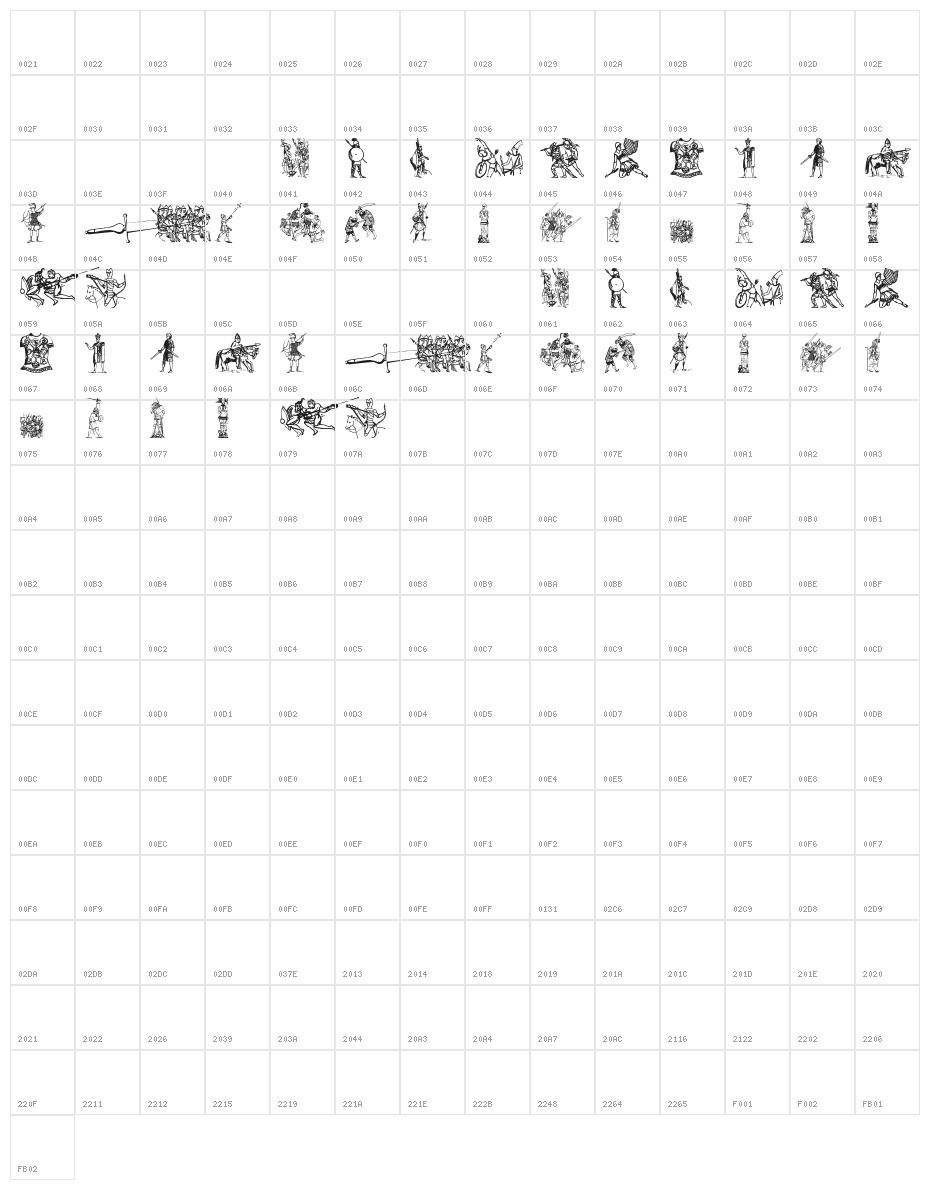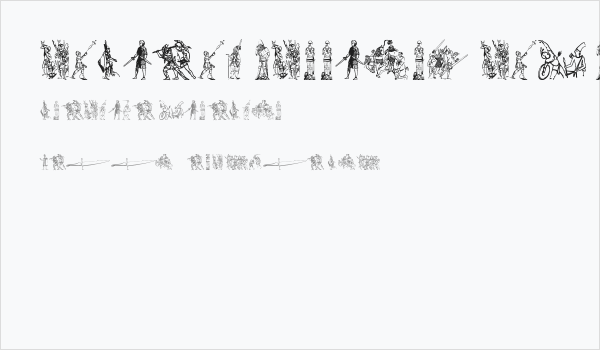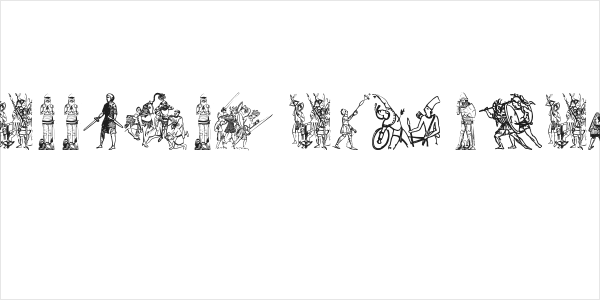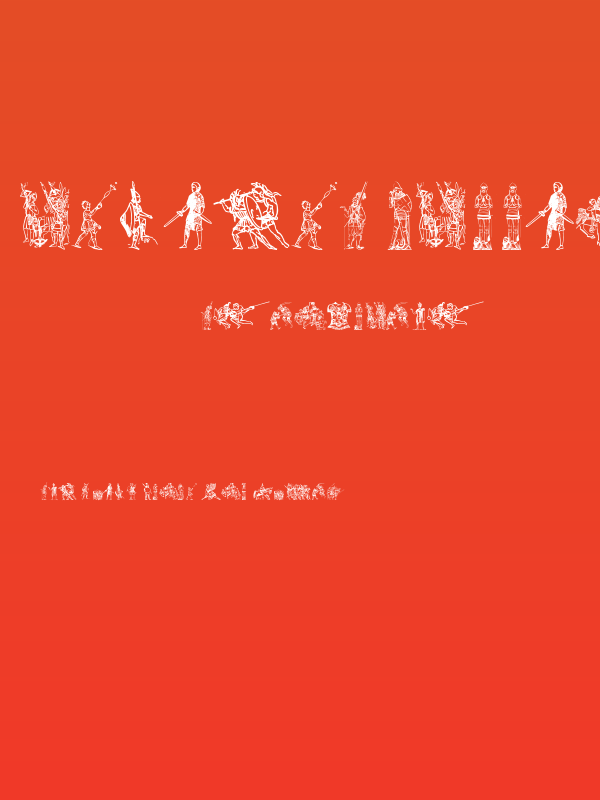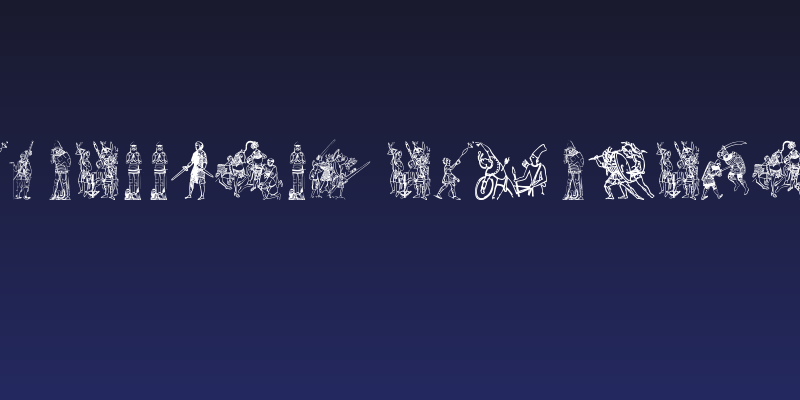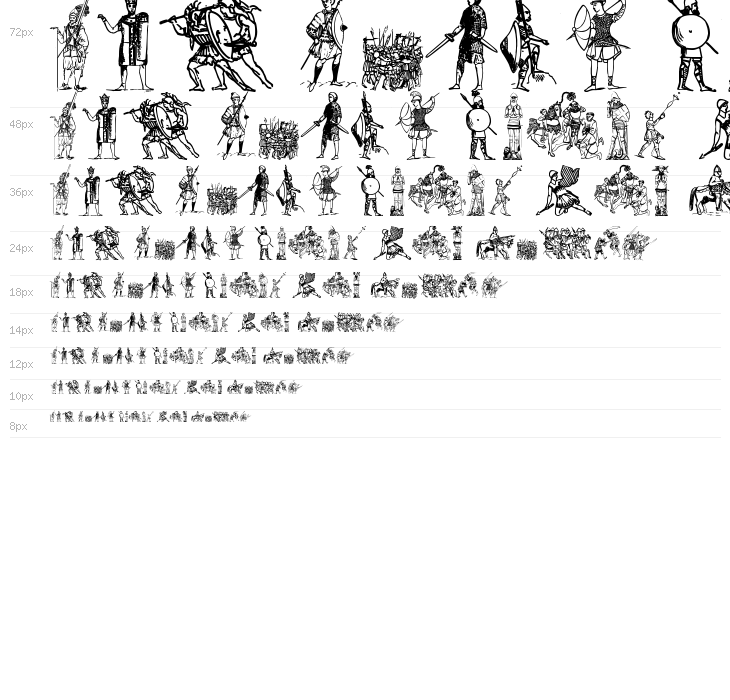
Ancient warriors and weapons tfb Font
Ancient warriors and weapons tfb Description
This is a decorative font featuring intricate illustrations of ancient warriors and weapons. Each character is represented by a unique drawing, depicting scenes of battle, armor, and historical figures. The style is highly detailed, capturing the essence of historical warfare with a touch of artistic flair. The characters are not traditional letters but rather pictorial representations, making it ideal for thematic projects. The illustrations are consistent in their artistic style, providing a cohesive look across the set.
| Use Case | Logos, Posters, Creative projects |
| Proposed Projects | Ideal for historical-themed posters, educational materials, or creative projects that require a unique and artistic touch. |